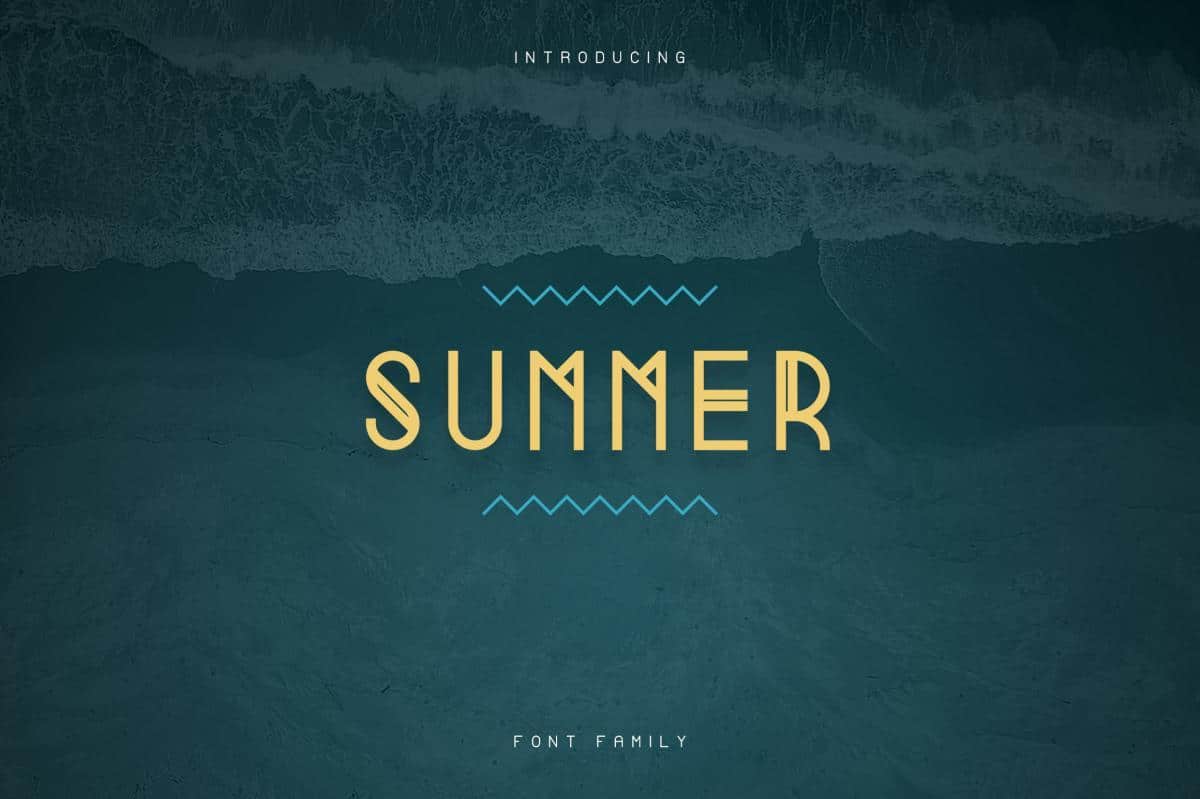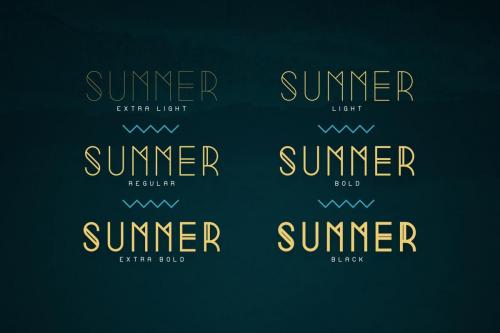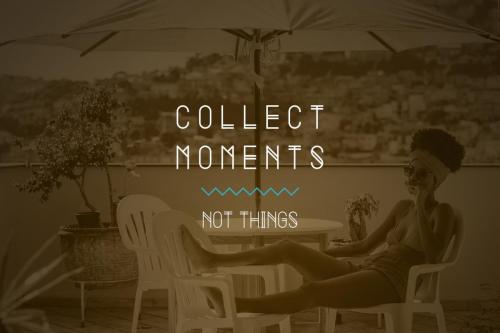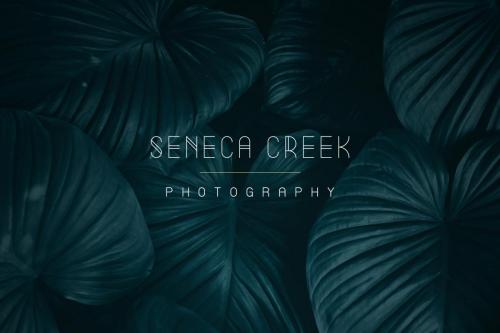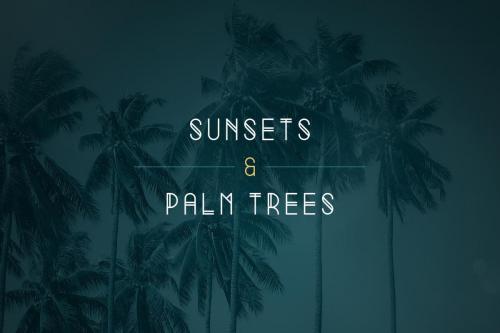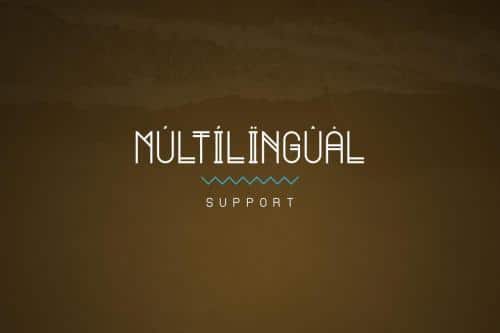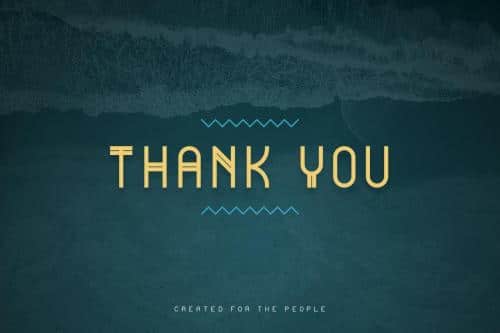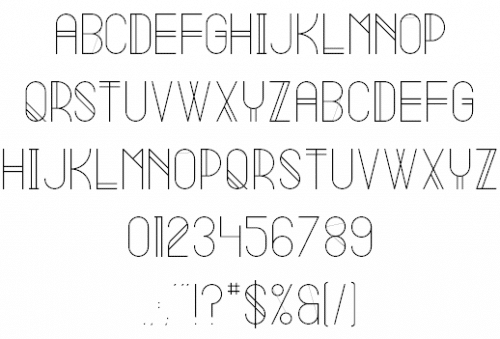
Summer is clean, fun typeface with 6 fonts and multilingual support. It’s a very versatile font that works great in large and small sizes.
Summer is perfect for branding projects, home-ware designs, product packaging, magazine headers – or simply as a stylish text overlay to any background image.
- Designer: VPcreativeshop